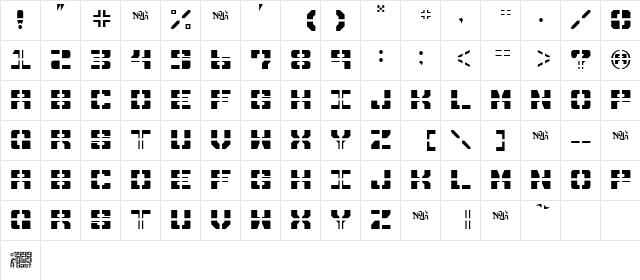
Drawn and Quartered Regular
Design Context for Drawn and Quartered Typeface
Drawn and Quartered is a composed and adaptable typeface that performs quietly and consistently across a wide range of design contexts.